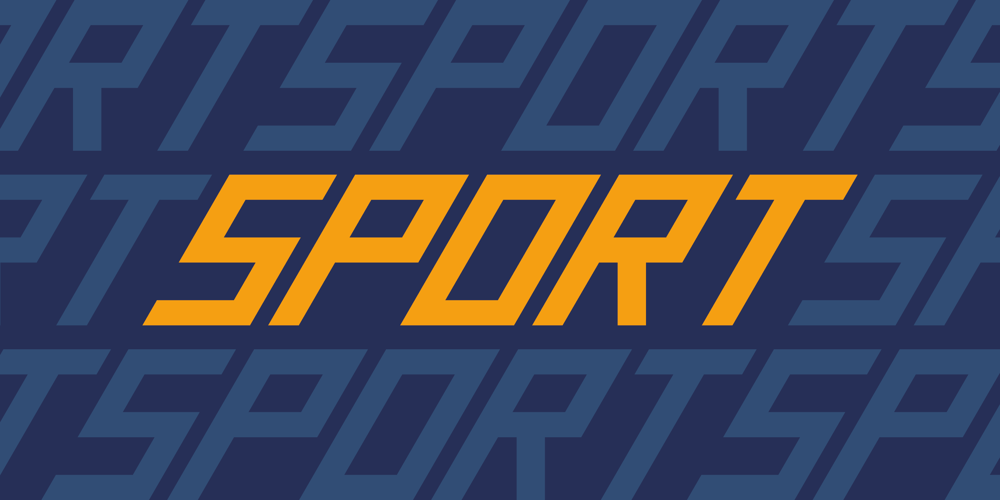
Sport
Sport font
Sport Font Family was designed by Felix Olschewsk and published by Focomp Modern Fonts. Sport contains 3 styles and family package options. Sport is a font that pulsates with energy and exudes a sporty vibe. Its thick, bold lines convey strength and dynamism, while each letter is meticulously crafted with a diagonal flair, creating a cohesive visual rhythm that ties words and sentences together seamlessly.